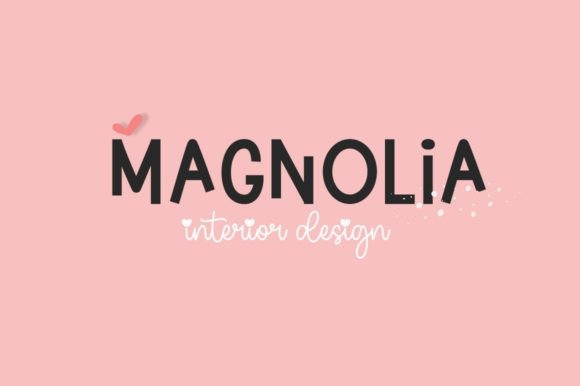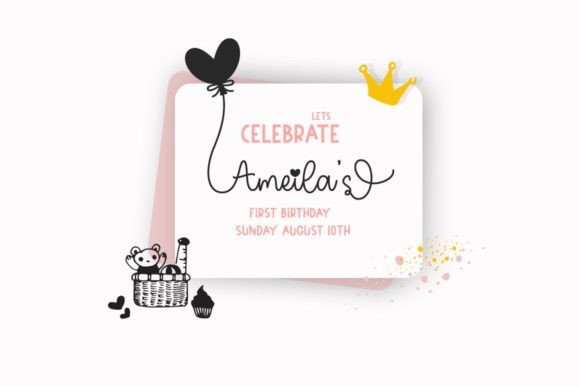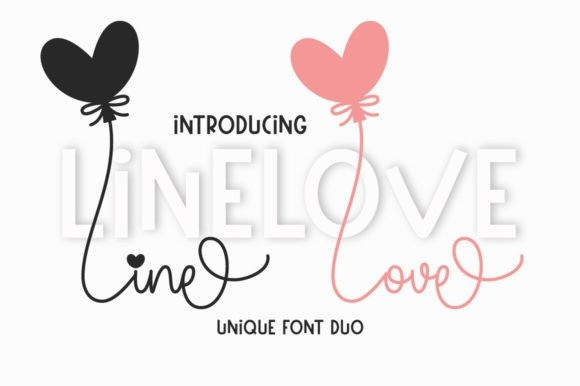
Line Love Display Font Duo
Line Love Display Font Duo consists of two handwritten fonts (script and display) designed to complement each other perfectly. Together or apart, these fonts are ideal for adding a chic and cheery touch to your crafts. Line Love is PUA encoded which means you can access all glyphs and ligatures with ease!